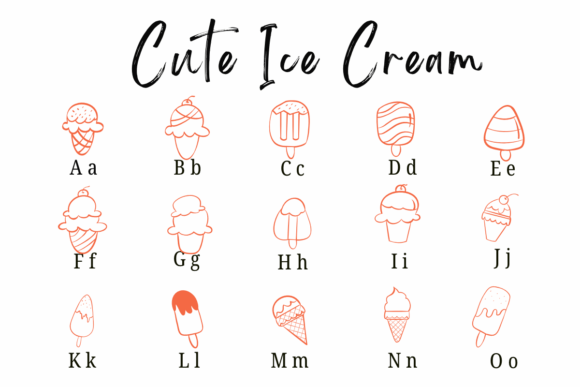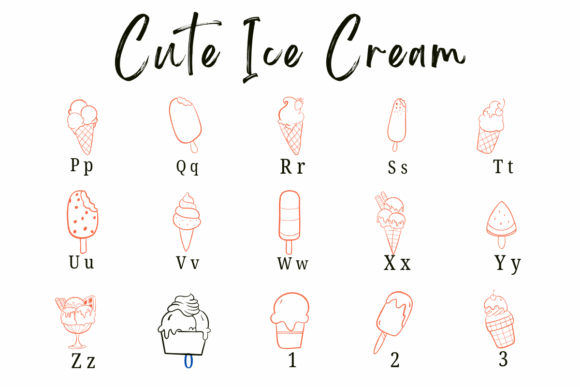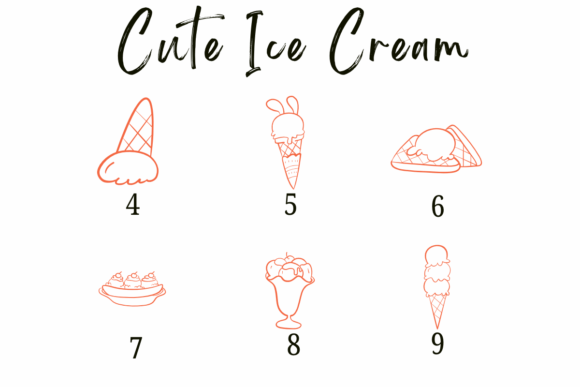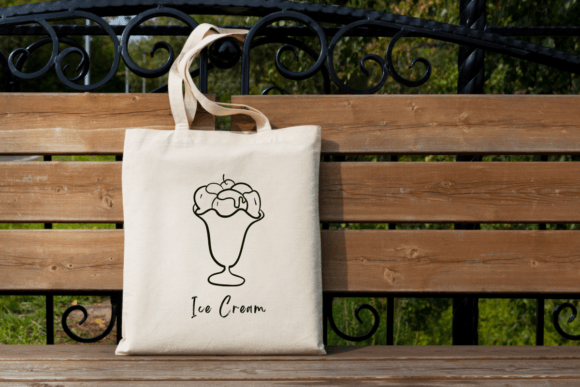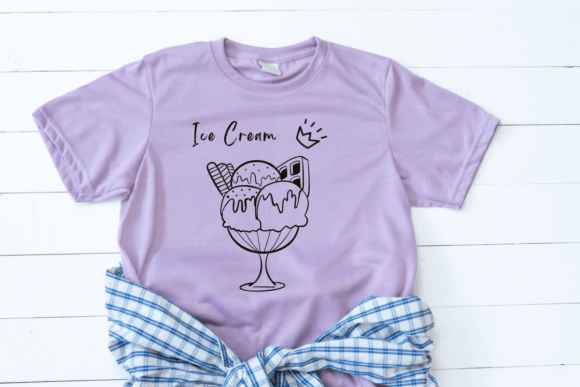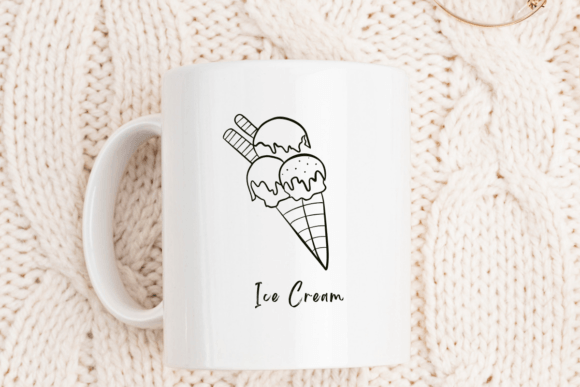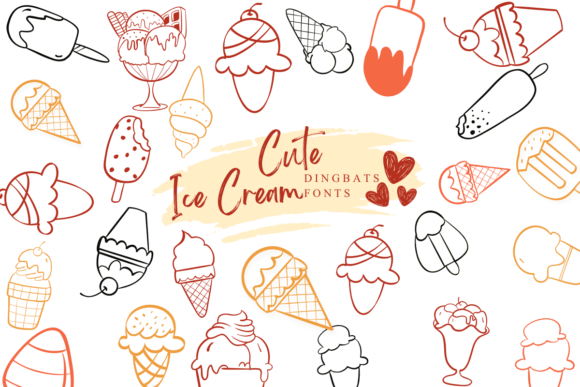
Cute Ice Cream Font: Add a Sweet Touch to Your Designs
Are you looking for a fun and playful font to add a touch of whimsy to your designs? Look no further than the Cute Ice Cream font! This delightful dingbat font is filled with all kinds of ice cream designs, making it perfect for designers, crafters, and anyone who loves a sweet treat.
What is Cute Ice Cream Font?
Cute Ice Cream is a unique dingbat font that features a wide range of ice cream designs. Each symbol in the font looks like a different ice cream treat, from classic cones and sundaes to ice cream sandwiches and milkshakes. The font is designed to be fun and playful, making it perfect for adding a touch of personality to your projects.
Features of Cute Ice Cream Font
• Wide range of ice cream designs: The Cute Ice Cream font features a wide range of ice cream designs, including cones, sundaes, ice cream sandwiches, milkshakes, and more.
• Fun and playful: The font is designed to be fun and playful, making it perfect for adding a touch of whimsy to your designs.
• Dingbat font: The Cute Ice Cream font is a dingbat font, which means that each symbol is a unique design rather than a traditional letter or number.
• Perfect for designers and crafters: The font is perfect for designers and crafters who want to add a touch of personality to their projects.
Uses for Cute Ice Cream Font
The Cute Ice Cream font can be used for a wide range of projects, including:
• Party invitations: Add a touch of whimsy to your party invitations with the Cute Ice Cream font.
• Craft projects: Use the font to add a personal touch to your craft projects, such as scrapbooking, card making, and more.
• Social media graphics: Add a fun and playful touch to your social media graphics with the Cute Ice Cream font.
• Signs and displays: Use the font to create eye-catching signs and displays for your business or event.
Tips for Using Cute Ice Cream Font
Here are a few tips for using the Cute Ice Cream font:
• Use it sparingly: Because the font is so playful, it’s best to use it sparingly to avoid overwhelming your design.
• Pair it with a simple font: Pair the Cute Ice Cream font with a simple font to create a fun and playful contrast.
• Experiment with colors: Have fun experimenting with different colors to find the perfect combination for your design.
The Cute Ice Cream font is a fun and playful dingbat font that’s perfect for adding a sweet touch to your designs. With its wide range of ice cream designs and fun, playful style, it’s perfect for designers, crafters, and anyone who loves a sweet treat. So why not give it a try and see how you can use it to add a touch of whimsy to your projects?
• What type of font is Cute Ice Cream?: Cute Ice Cream is a dingbat font.